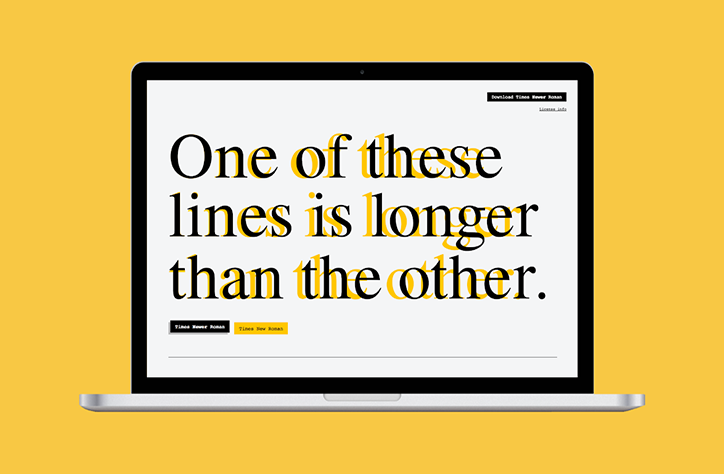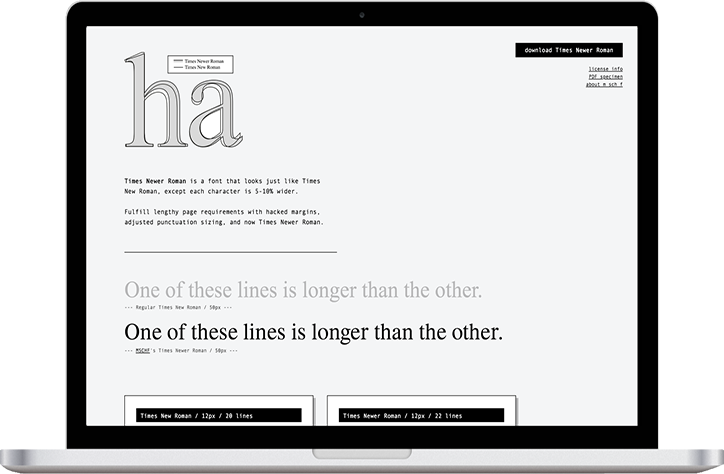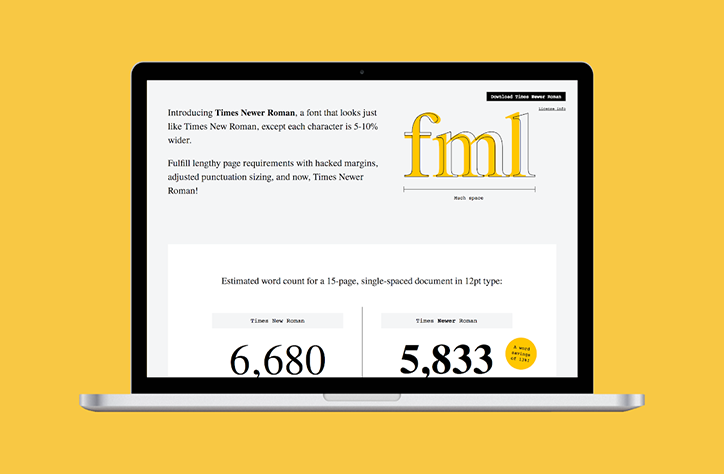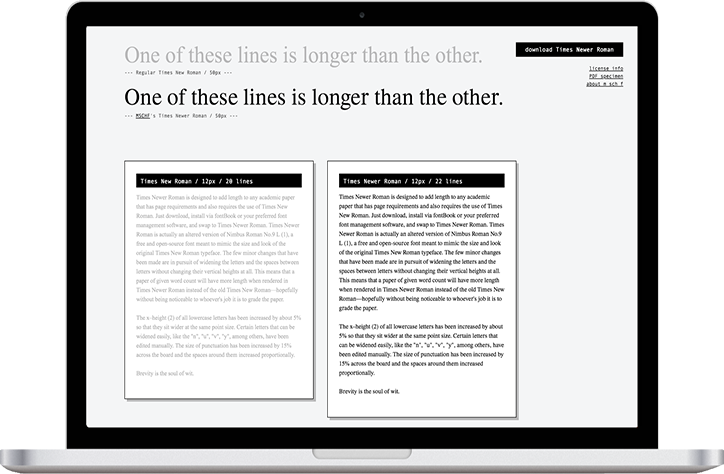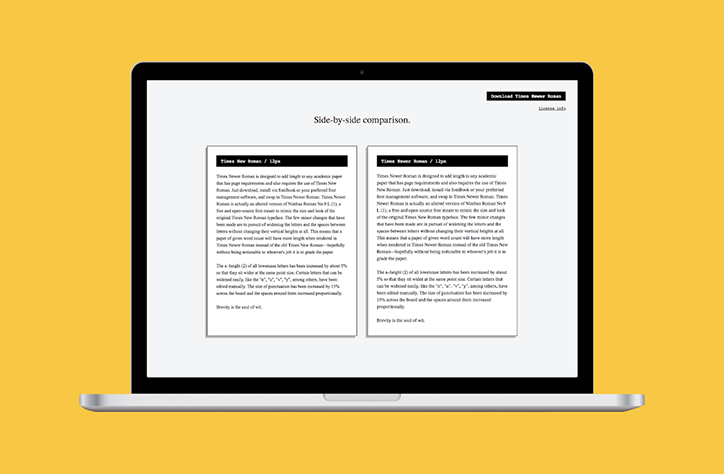
Times Newer Roman is the typeface that might help you beat page counts with ease
MSCHF: Times Newer Roman
Most people reading this will have experience of writing essays, and anyone who has experience of writing essays also has experience of the unique hell of trying to hit a word count that simply refuses to be hit. There is, it turns out, only so much that hungover 19 year old you has to say about Foucault’s The Birth of the Clinic.
We get the feeling that US internet-experts MSCHF have been there. They’ve faffed about with line spacing and margin cropping, and even converting the whole thing into Comic Sans, just to distract professors from the creakiness of their exploration of Lady Chatterly’s Lover through a Marxist lens. Maybe. Either way, it might just be every lazy student’s new saviour thanks to it latest product.
Times Newer Roman is a typeface which scans to the untrained eye as identical to the OG font big dog, except — cunningly — each letter is indistinguishably 5 to 10% wider across the board. That increased size, they believe, can trick assessors and professors into believing that a page count has been hit.
Gabriel Whaley, Founder and CEO of MSCHF doesn’t seem to like the arbitrary nature of word counts. In a press release, he says, “These minimums exemplify the educational system’s tendency to push quantity over quality, something that’s completely at odds with the average professional’s need to express ideas in the fewest words possible (no one is going to read a super long email, for instance). Times Newer Roman is a commentary on the way students actually think. It also creates a system that encourages students to say more with less.”
MSCHF: Times Newer Roman